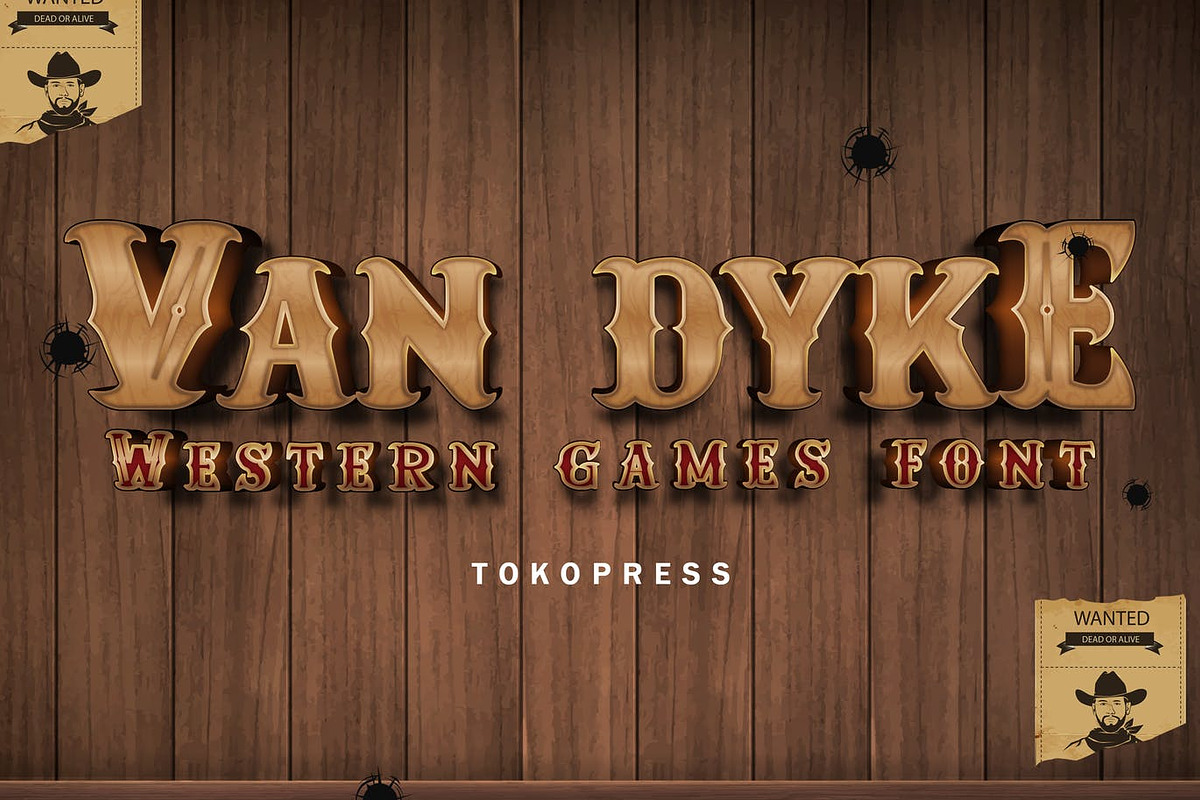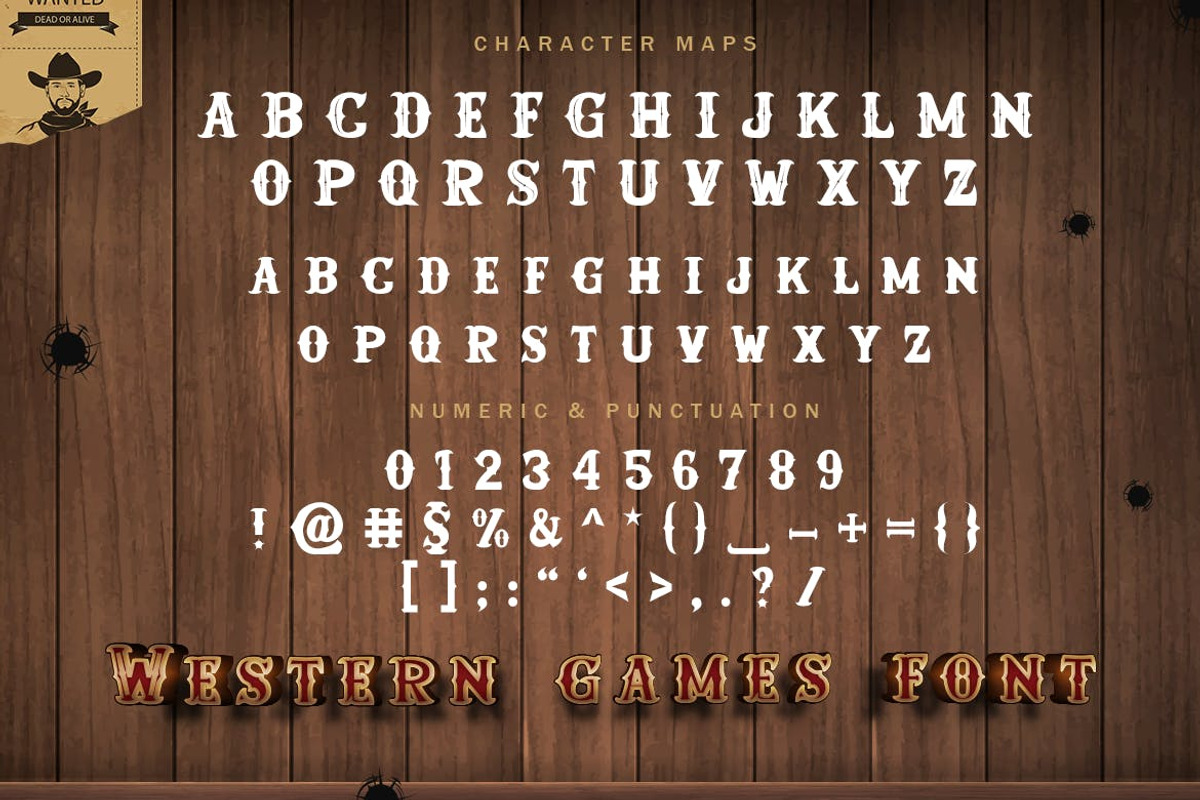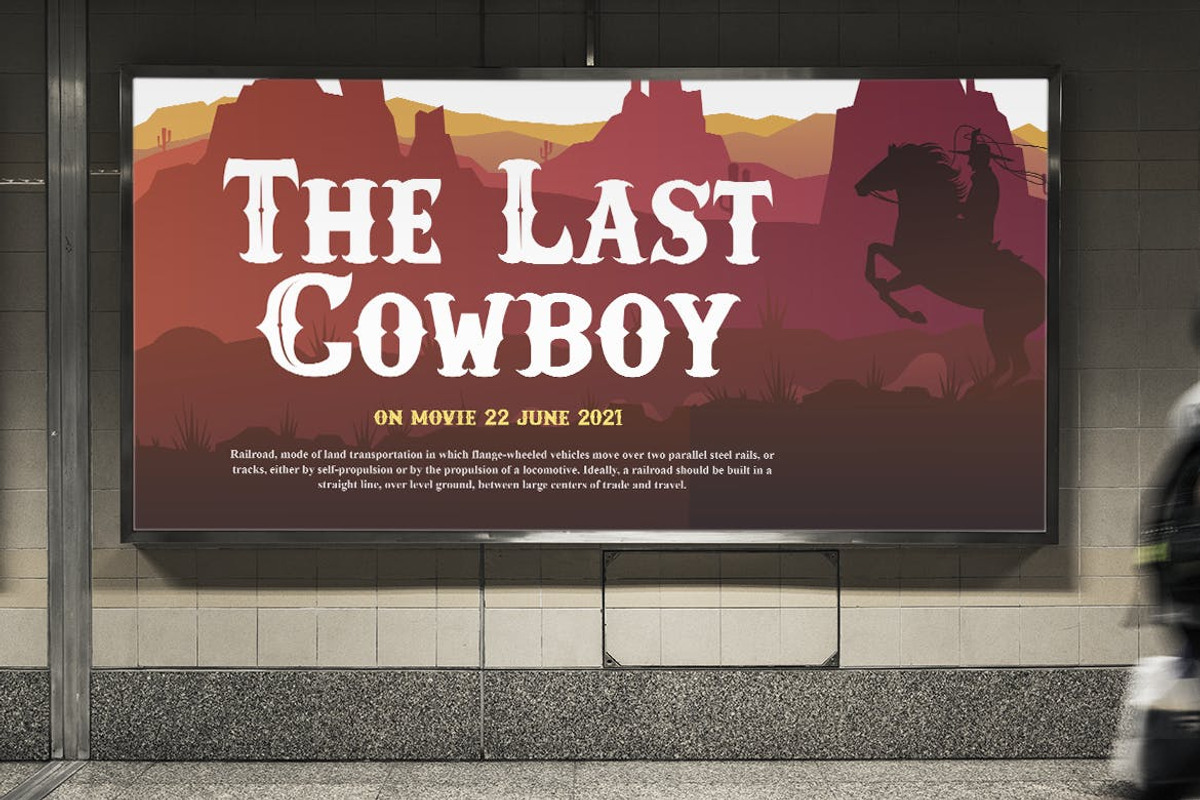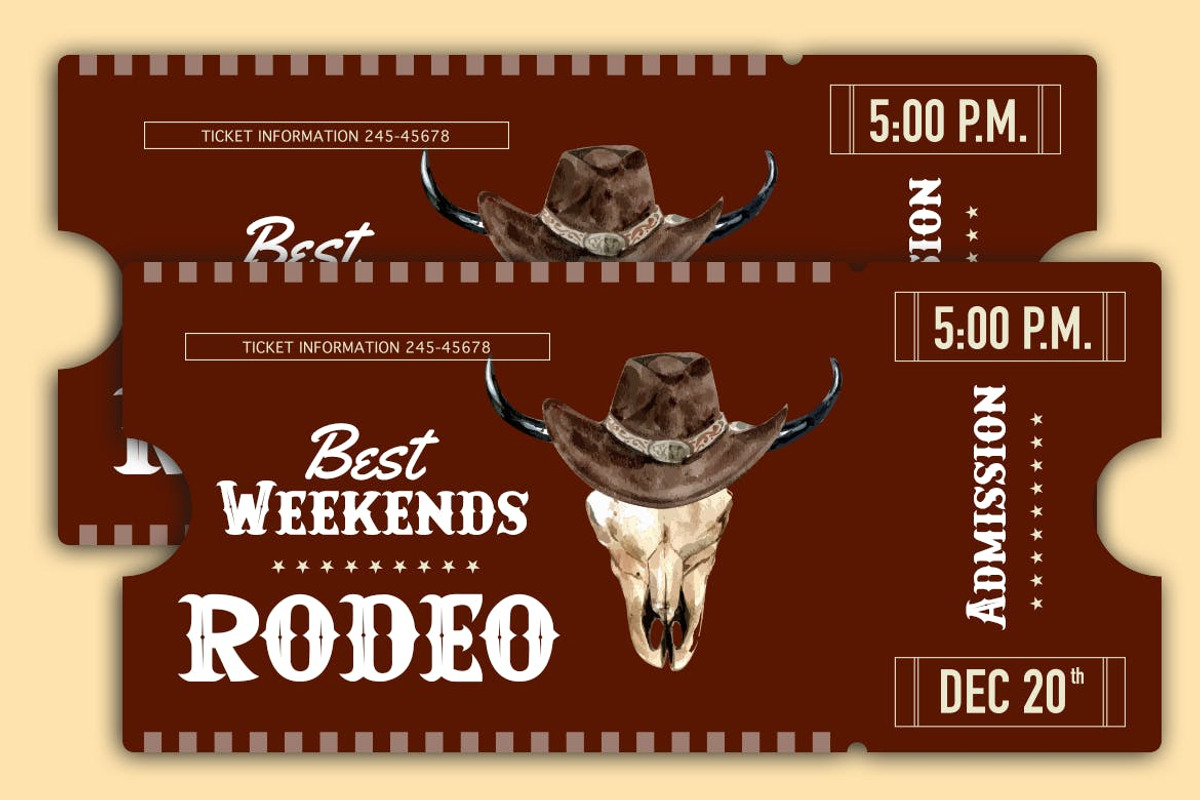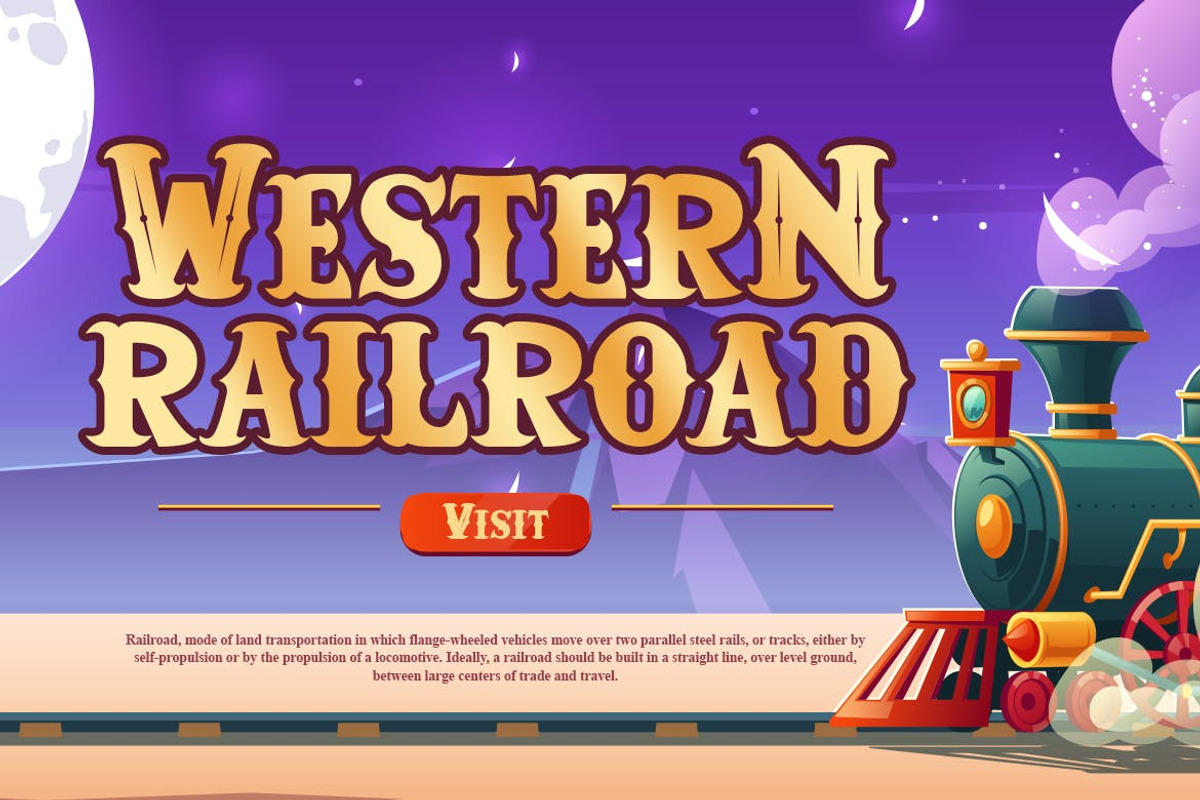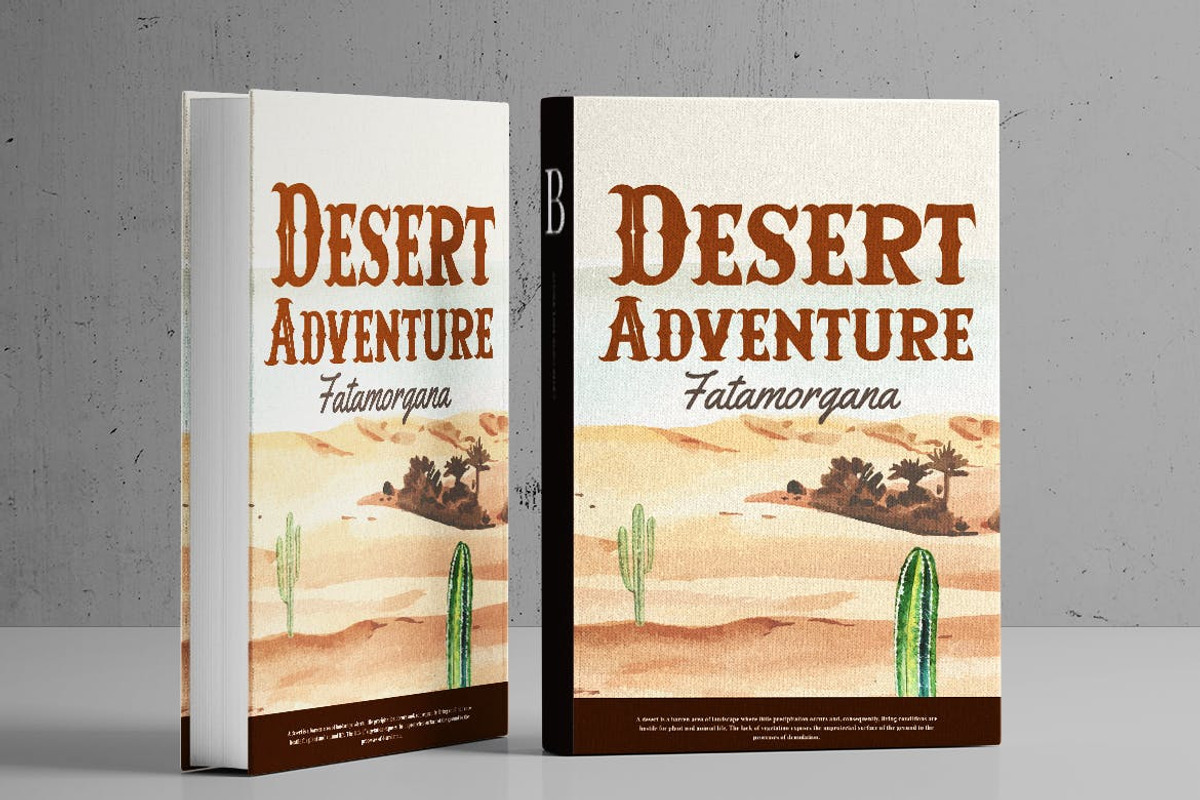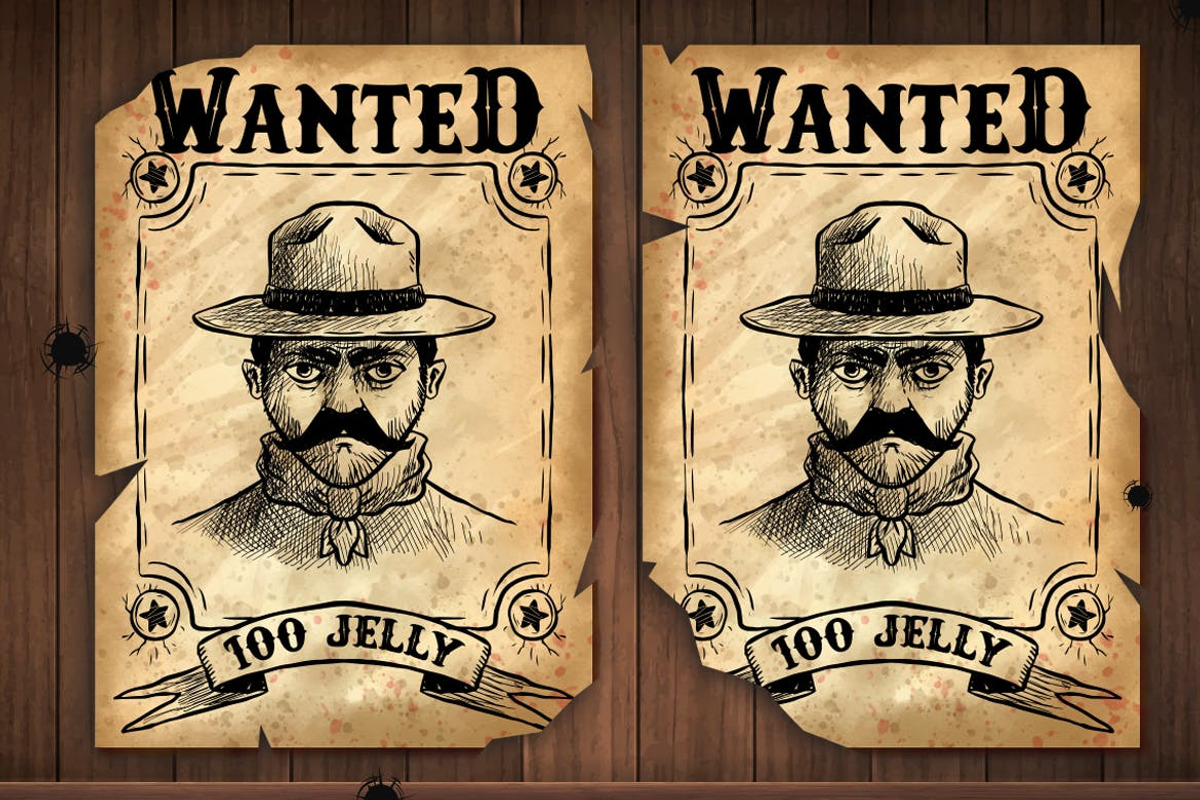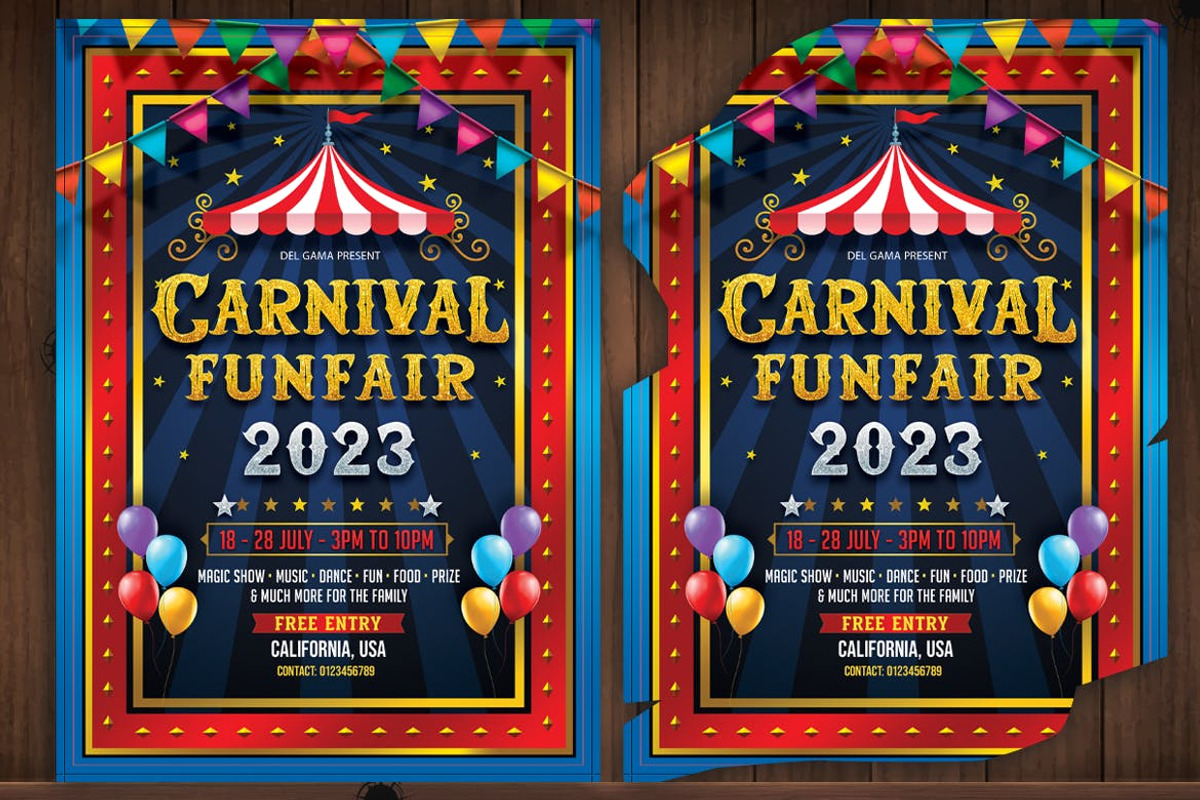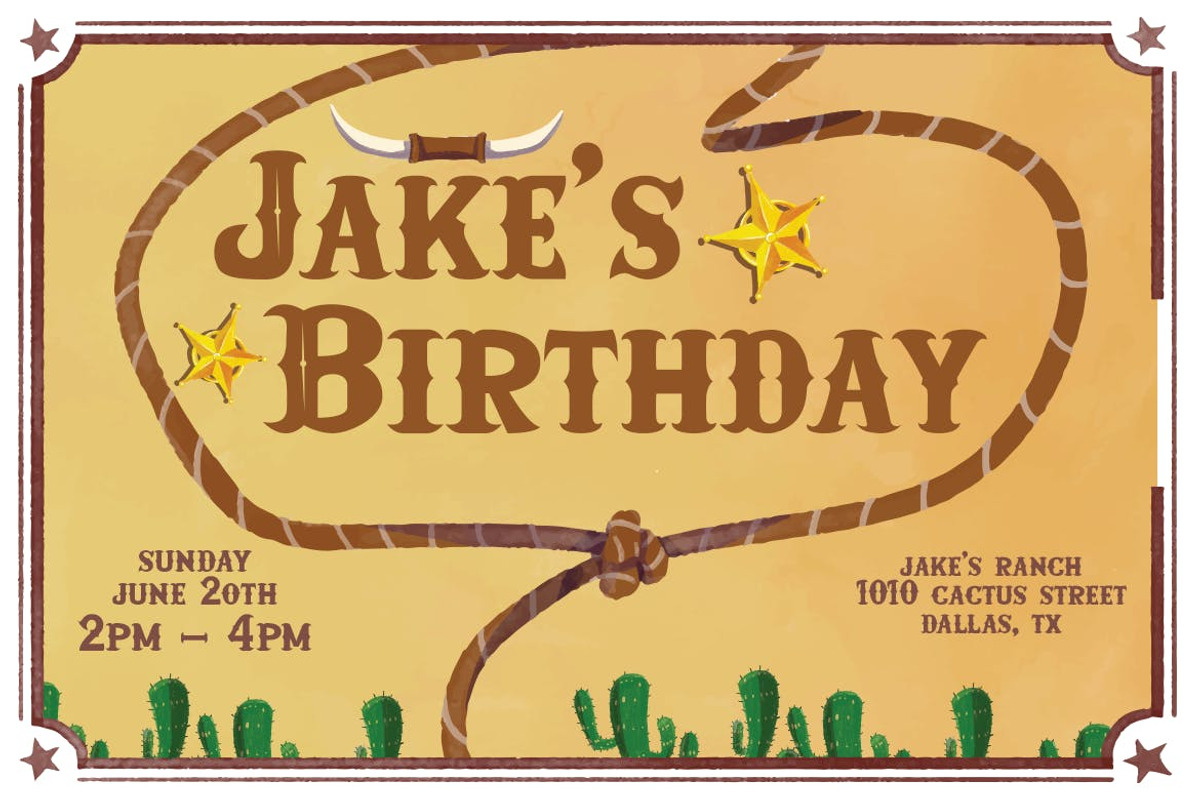
Van Dyke - Western Font
Van Dyke - Gaming western font
It is western, it is ruling the rough and dusty world, it is Van Dyke, your new favorite western gaming font in town.
Suit perfectly for kids market, online games, stationary, school book and stationary supplies font, poster, movie title, youtube covers, youtube thumbnails, social media page covers and so on...